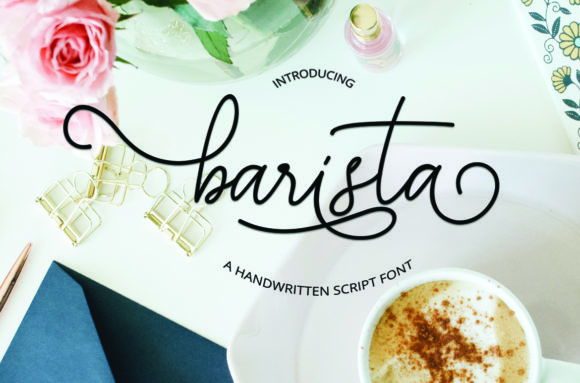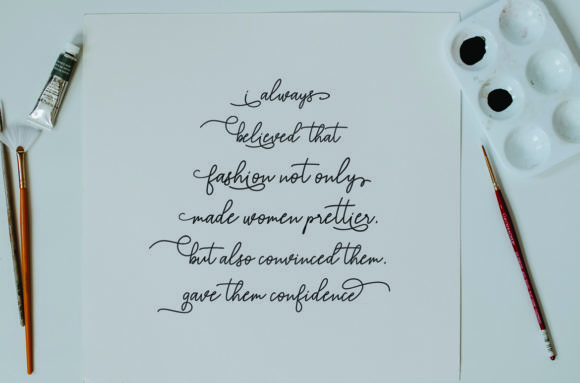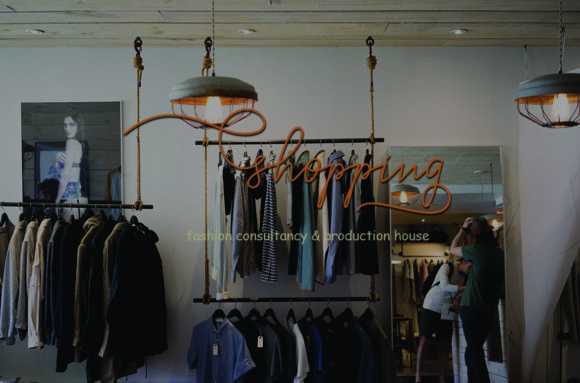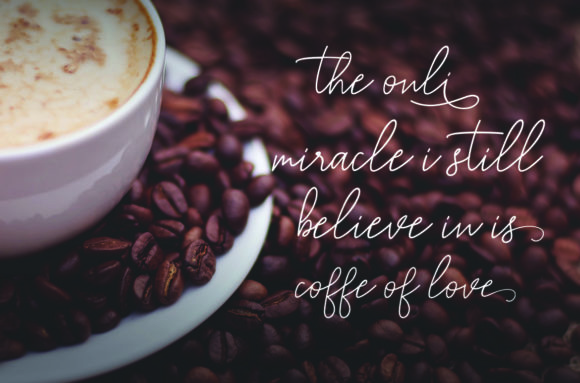
About Barista Font
Barista is a magical script font carefully created with a touch of elegance. It features an incredibly classic style, while still keeping a friendly feel. Barista is the perfect font for making original and outstanding designs. This font is PUA encoded which means you can access all of the cute glyphs and swashes with ease! It also features a wealth of special features including alternate glyphs and ligatures.